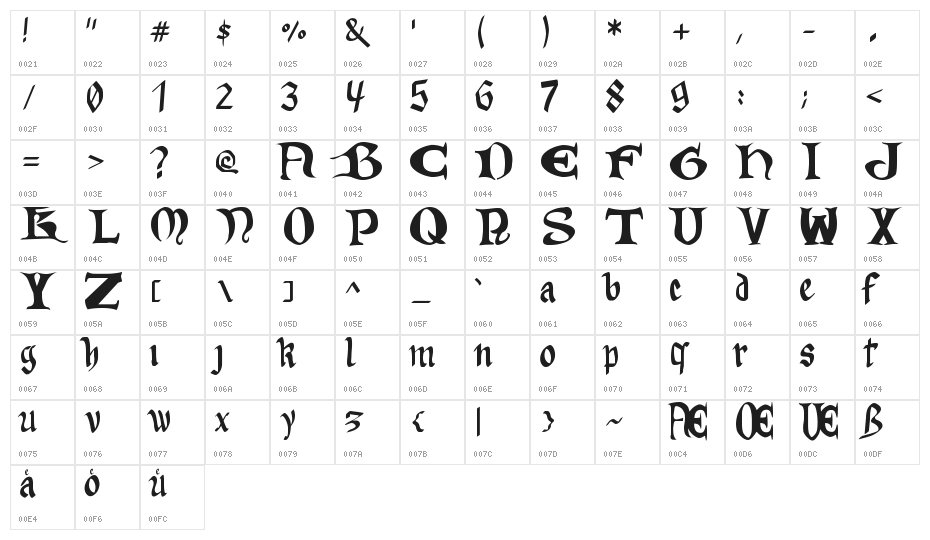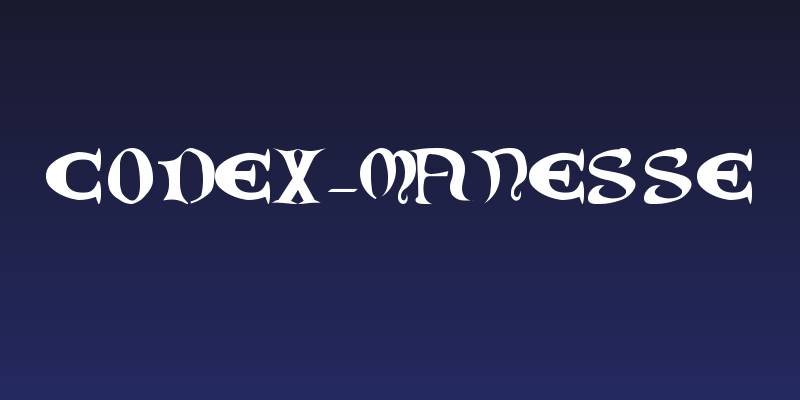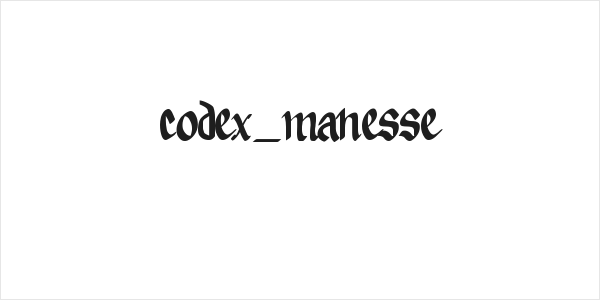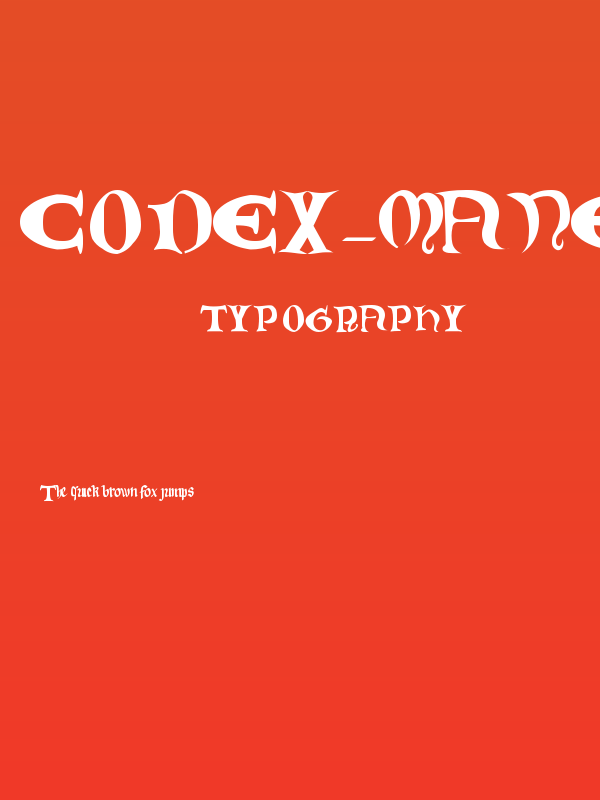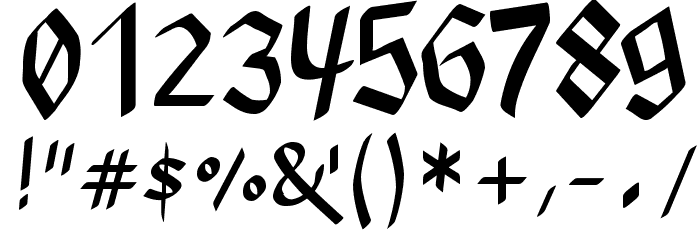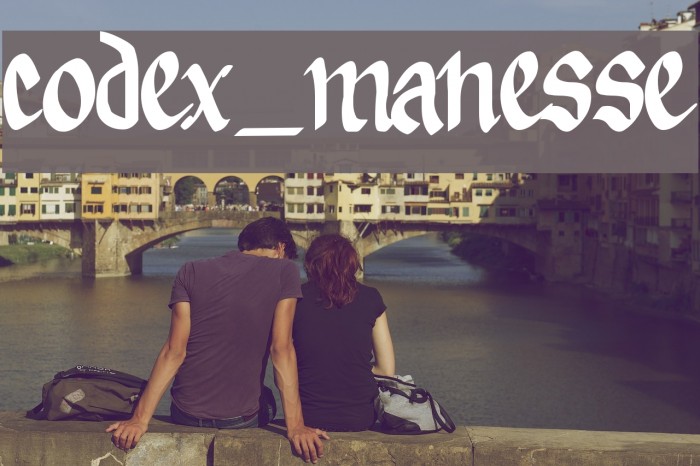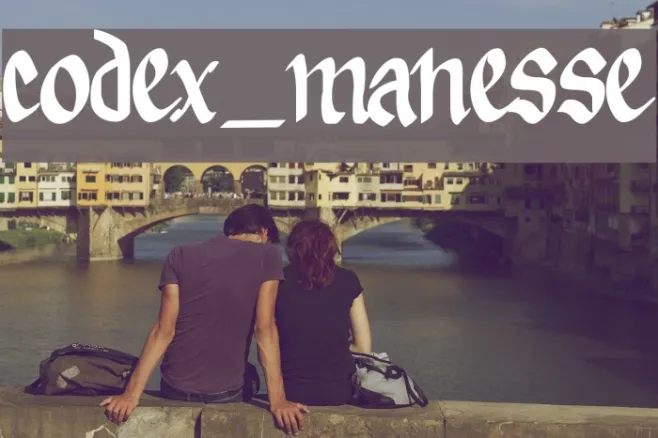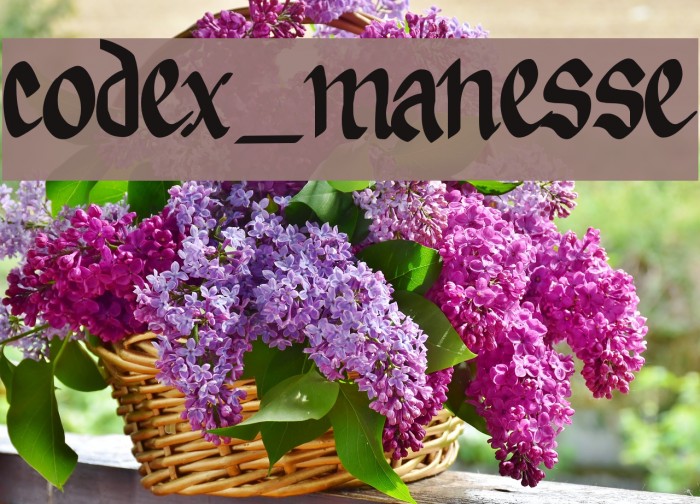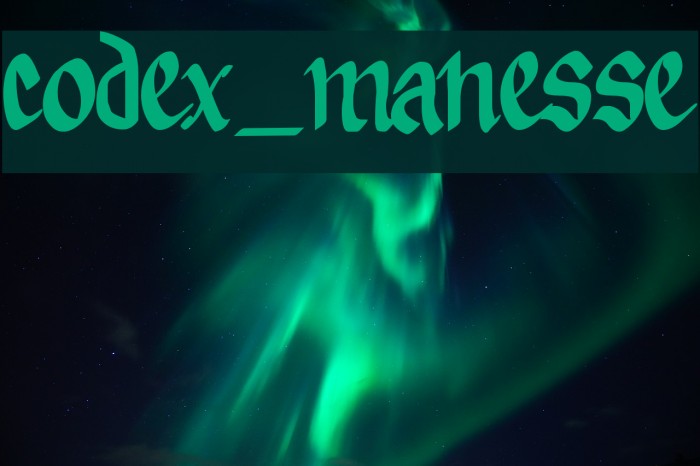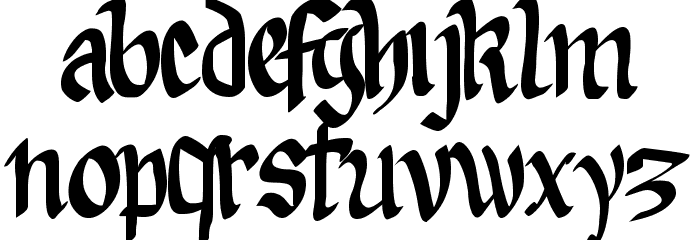
codex_manesse Font
codex_manesse Description
This font exhibits a distinct medieval and gothic aesthetic, characterized by its intricate and ornate letterforms. The uppercase letters feature sharp, angular serifs and elaborate flourishes, giving them a dramatic and historical appearance. The lowercase letters maintain a similar style, with a slightly more fluid and connected structure, enhancing readability while preserving the overall decorative feel. The numerals are bold and consistent with the gothic theme, featuring sharp angles and a strong presence. Special characters are equally ornate, fitting seamlessly into the font's cohesive design. This font's unique style is reminiscent of historical manuscripts and medieval scripts, making it ideal for projects that require a touch of antiquity and elegance.
| Proposed Projects | Ideal for historical fiction book covers, medieval-themed event invitations, or fantasy game titles. |